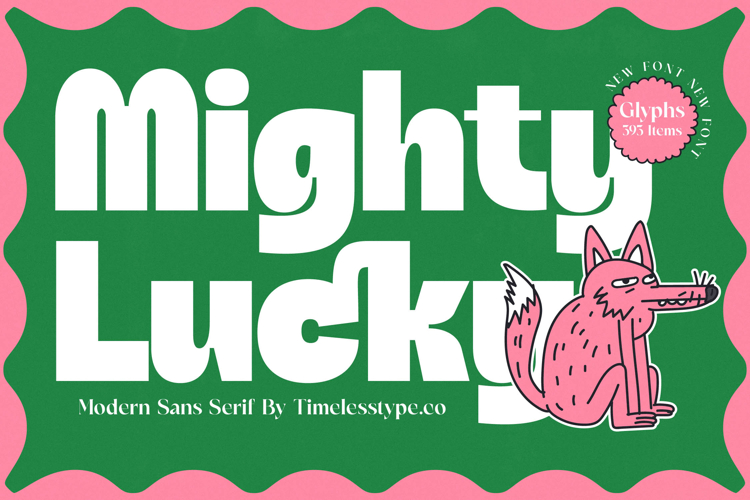
Mighty Lucky - Modern Sans Serif
Unleash a wave of modern charm and unforgettable style with Font Mighty Lucky - Modern Sans Serif Sans Serif. This exceptional typeface masterfully blends a bold, assertive presence with an invitingly playful aesthetic, instantly capturing attention. Its generously rounded forms and substantial weight create a distinctive visual rhythm, making every word resonate with confident originality. It's the perfect choice for designs demanding both impact and approachability.
Experience the dynamic design potential of this truly versatile sans serif. Font Mighty Lucky - Modern Sans Serif offers a contemporary elegance that elevates any creative endeavor, from digital interfaces to printed materials. Its unique character shapes ensure outstanding legibility even at display sizes, providing designers with a powerful tool to craft memorable and engaging visual narratives. This font promises to infuse your projects with a fresh, modern appeal.
Expand your creative horizons with unparalleled global reach. With its extensive multilingual support, Font Mighty Lucky - Modern Sans Serif adapts seamlessly across global markets, making it incredibly versatile for international projects. This comprehensive language coverage ensures your message maintains its intended impact and broad appeal regardless of geographic boundaries, fostering truly inclusive design.
Discover the myriad possibilities where Font Mighty Lucky - Modern Sans Serif truly shines. It is perfect for luxury branding, distinctive packaging, impactful editorial design, eye-catching advertising campaigns, and any project requiring bold headlines or a friendly, modern touch for children's products. Choose this font to infuse your brand with an unforgettable presence and ensure your communications stand out in a crowded marketplace.